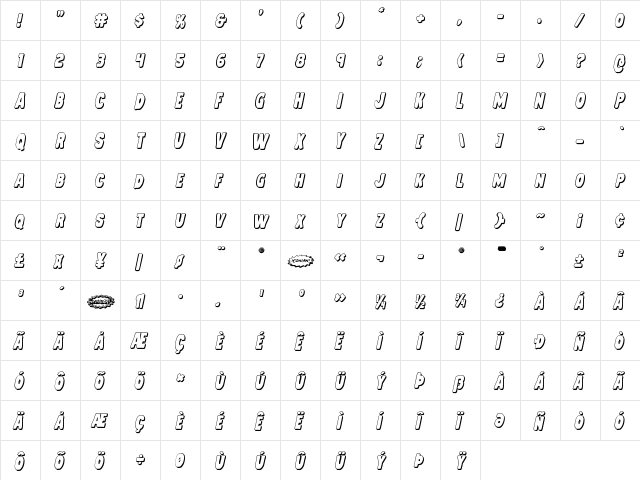
Mystery Mobile 3D Italic Italic
Design Context for Mystery Mobile 3D Italic Typeface
Mystery Mobile 3D Italic is a composed and adaptable typeface that performs quietly and consistently across a wide range of design contexts. Its italic angle brings a sense of urgency and motion to the letterforms.
Pro Tip: Use Mystery Mobile 3D Italic for emphasis, pull quotes, and subheadings where its slanted energy can add rhythm to the layout.